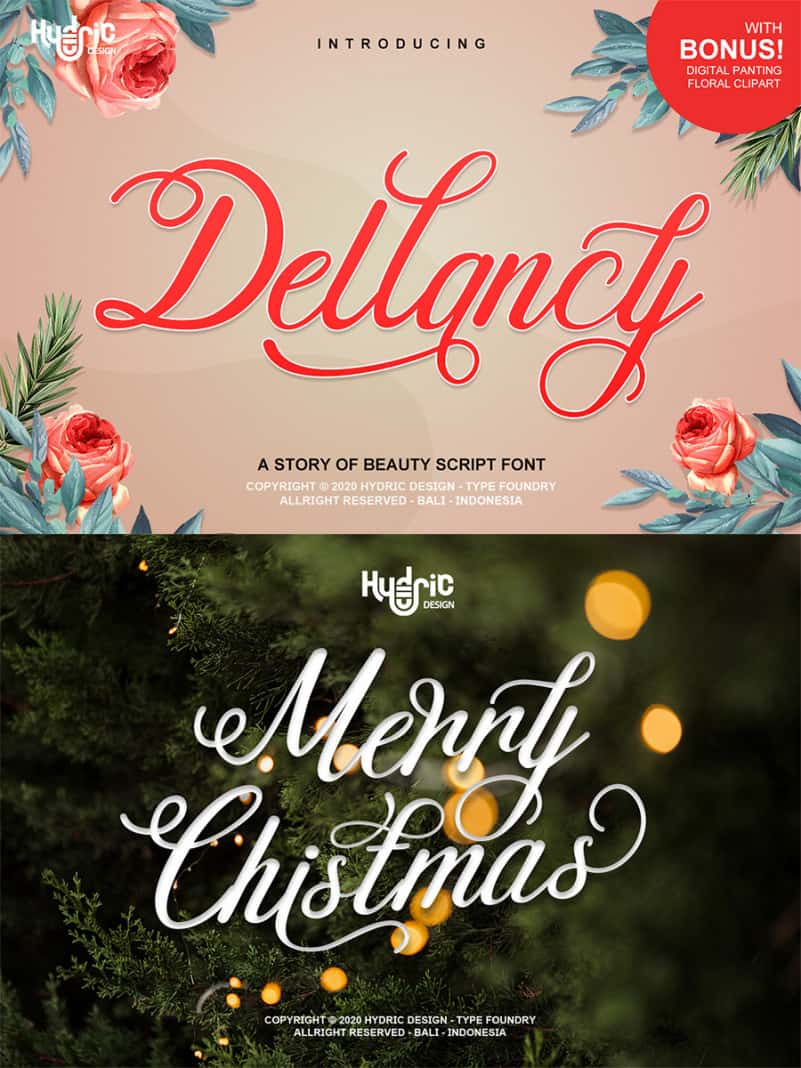
Dellancy Script Font
Dellancy Script Font is an elegant and following handwritten font. It is PUA encoded which means you can access all of the glyphs and swashes with ease!
It features a varying baseline, smooth lines, gorgeous glyphs and stunning alternates. It maintains its classy calligraphic influences
while feeling contemporary and fresh. Fall in love with this font and bring your projects to the highest levels!
Dellancy Script Font perfect for Logo Branding, Wedding invitation, and for every other design which needs a handwritten romantic touch.
Decorative and handwritten or creative style script font for your new projects.